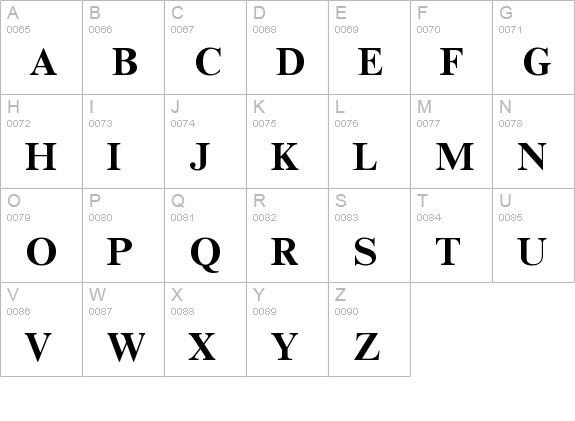
NimbusRomNo9T Bold Font Details
NimbusRomNo9T Bold is a strong, high-contrast variant in the NimbusRomNo9T typeface family \xE2\x80\x94 well suited to headlines, attention-grabbing titles, and strong calls-to-action.
NimbusRomNo9T Bold is a striking and versatile font that exudes elegance and professionalism. Its bold and commanding presence makes it perfect for headlines, posters, and branding materials. The strong and confident letterforms of NimbusRomNo9T Bold will ensure that your message stands out and leaves a lasting impression on your audience. The best part? NimbusRomNo9T Bold is available for free download at FontsMarket.com. This means you can easily access this beautiful font and use it for all your design projects without any cost. Don't miss out on the opportunity to enhance your designs with the timeless appeal of NimbusRomNo9T Bold – download it for free today!